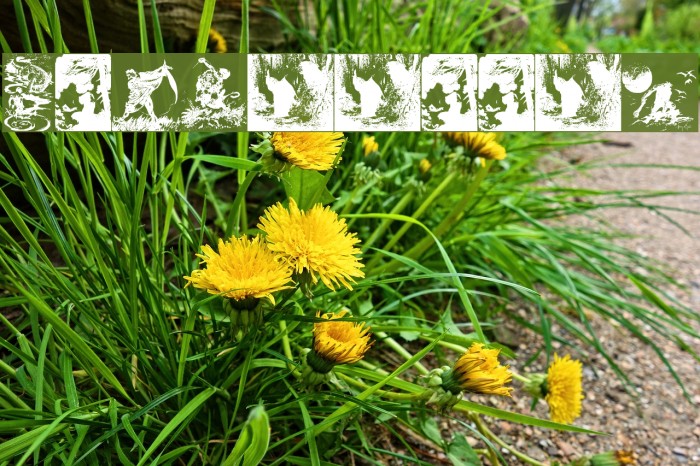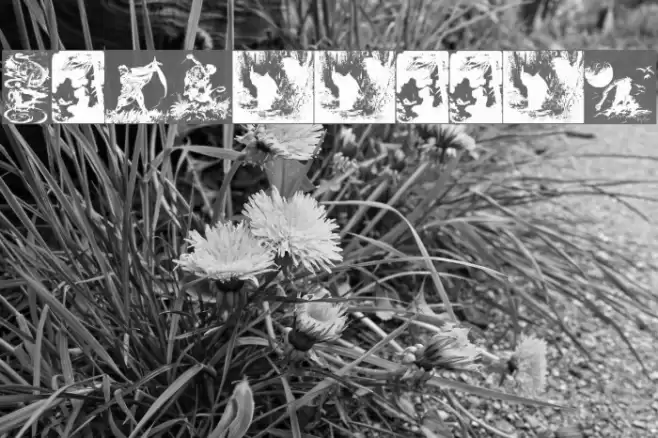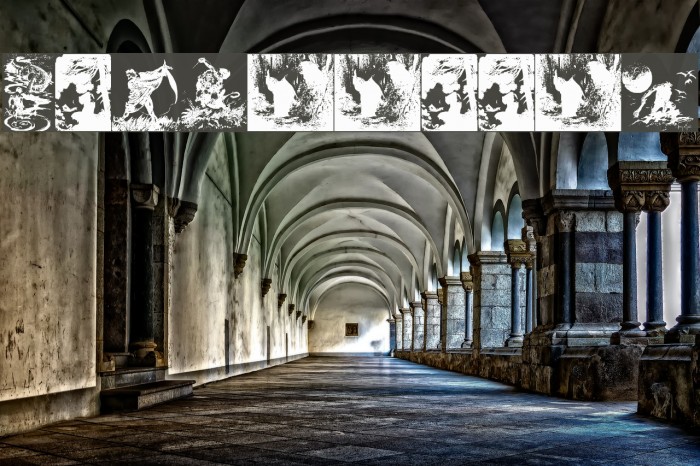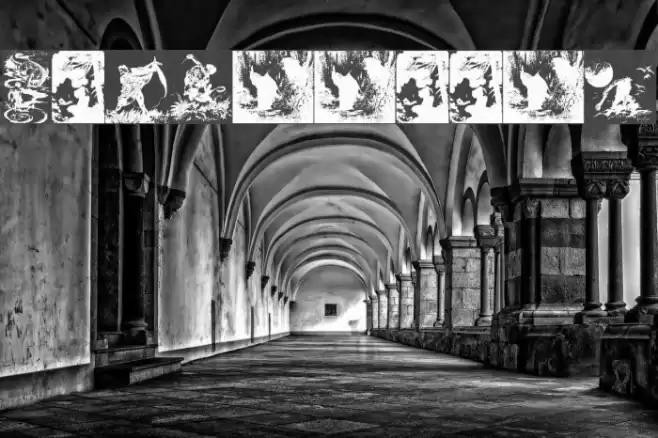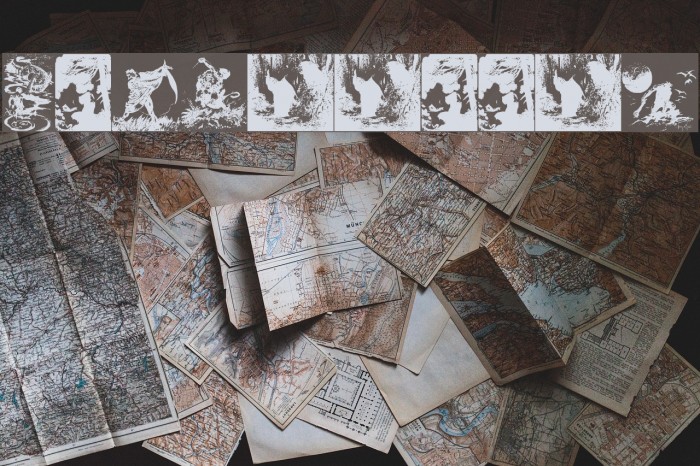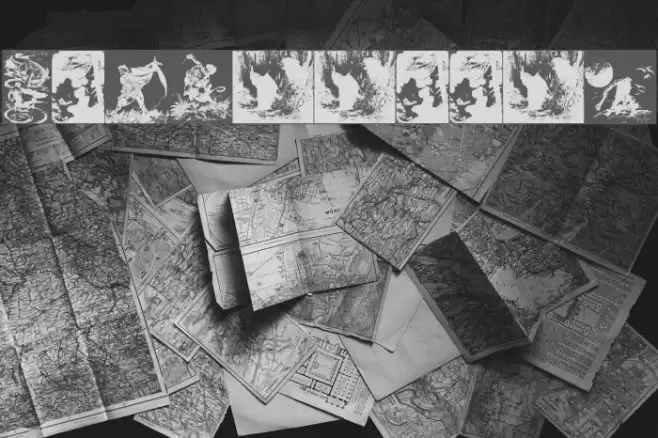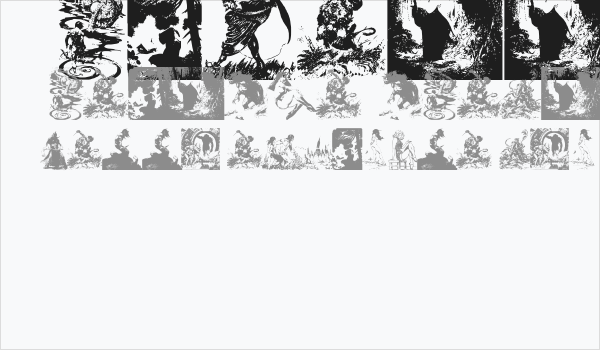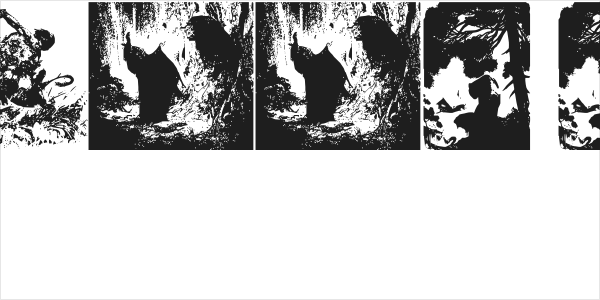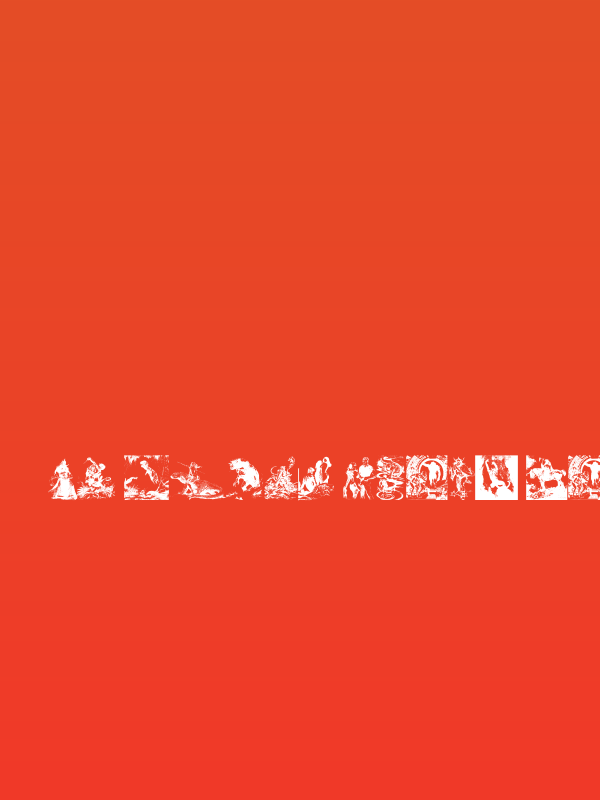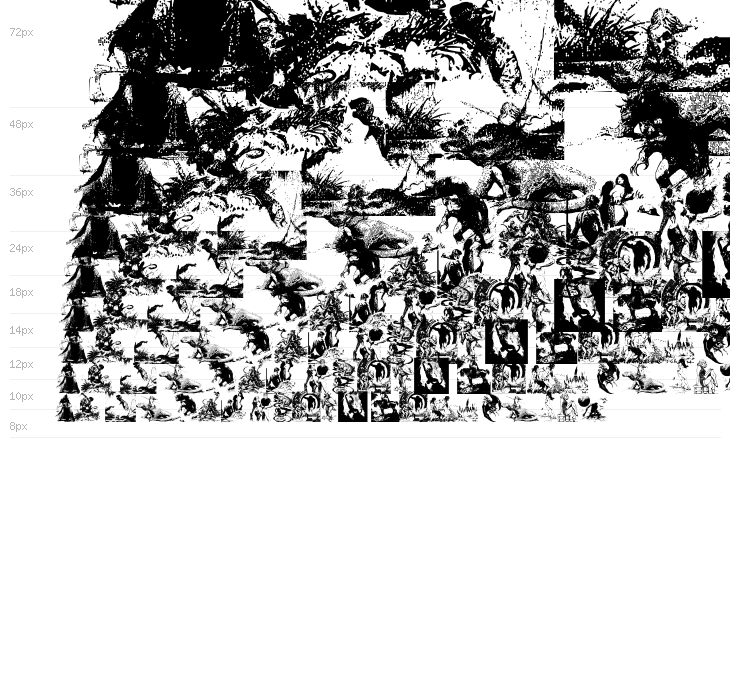
FrazettaBats1 Font
FrazettaBats1 Description
A highly detailed decorative font consisting of illustrated scenes and figures in a fantasy or pulp art style, with each character represented by a unique black-and-white drawing rather than traditional letterforms.
| Overall Style | Decorative, Fantasy, Illustrative |
| Use Case | Display, Logos, Themed artwork, Titles |
| Proposed Projects | Posters, book covers, fantasy event flyers, graphic novels, themed invitations. |